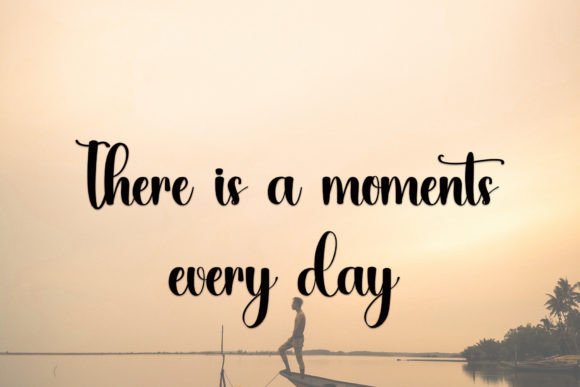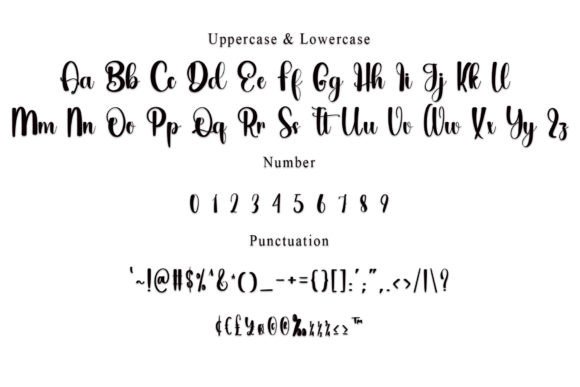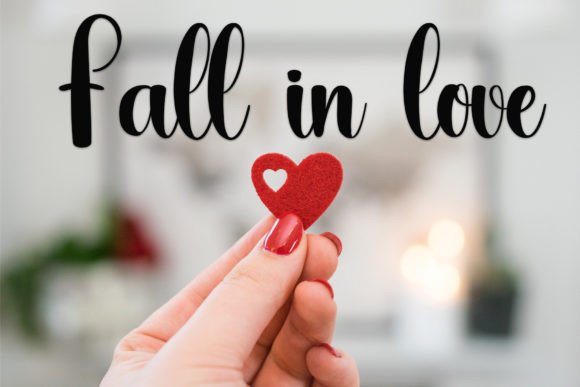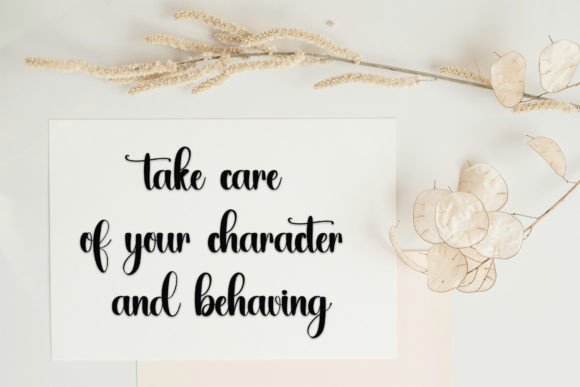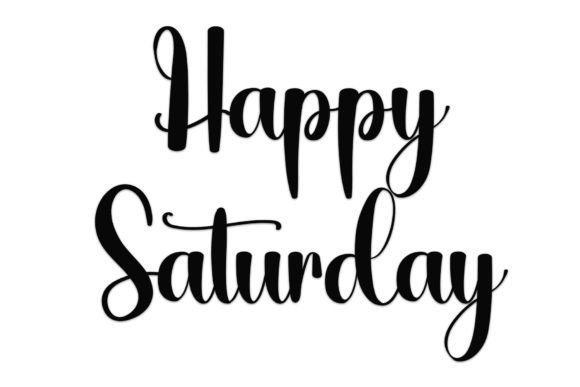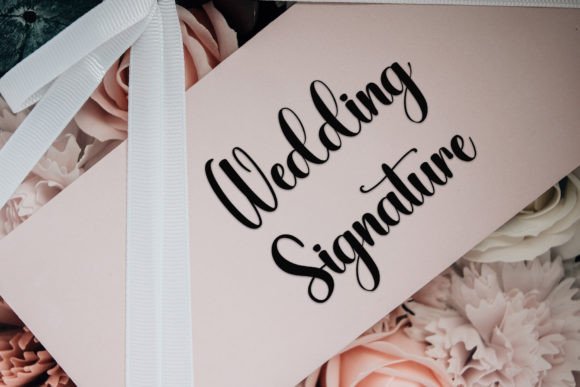
The Perfect Blend of Elegance and Whimsy: Baby Sintya Font
Do you ever find yourself scrolling through your favorite design inspiration board, and suddenly, a beautiful handwritten font catches your eye? For many of us, it’s that perfect moment when a creative spark is ignited. It’s the moment when we know we have to try something new, something special. And for designers and creatives out there, the search for the perfect font is an ongoing quest.
Enter the Baby Sintya Font, a carefully crafted handwritten font that embodies a touch of elegance and whimsy. This font is perfect for anyone looking to add a personal touch to their designs, whether it’s for Instagram captions, calligraphy scripts, or DIY projects. With its versatility and charm, the Baby Sintya Font is a valuable addition to any designer’s toolkit.
- Font Type: Script Font
- Unique Characteristics: Hand-drawn, elegant, and cursive script font, ideal for creating a warm and inviting atmosphere in designs.
- Language Support: Multi-language support, including Latin, Cyrillic, and Greek alphabets.
Baby Sintya Font Review
As a designer, I was excited to try out the Baby Sintya Font. Overall, I found it to be a cute and playful font, perfect for creating a whimsical feel in children’s books, nursery decorations, or other projects that require a touch of sweetness. ✨
- Its rounded shapes and soft lines give it a gentle, childlike feel.
- The font is highly customizable, allowing for a range of color options and effects.
- It’s available in a variety of weights, from light to bold, making it versatile for different applications.
- ⚠️ The font may not be suitable for formal or professional projects, as it can come across as overly childish.
- ⚠️ Some of the characters may not be perfectly formed, which can affect the overall quality of your design.
- ⚠️ The font is not as bold or striking as some other options, which may limit its use in high-impact designs.
Overall, I think the Baby Sintya Font is a fun and creative choice for designers looking to add a touch of whimsy to their projects. While it may have some limitations, it’s a great option for projects that require a lighthearted and playful feel.
Some tips for getting the most out of the Baby Sintya Font include:
– Using it for playful and creative designs.
– Pairing it with bold and colorful graphics.
– Creating custom logos or branding materials.
– Using it for social media posts, flyers, or posters.
Q: Is Baby Sintya a web-friendly font?
Yes, Baby Sintya is designed to be web-friendly and can be easily embedded in HTML documents. It is also optimized for use in digital interfaces, with clear and legible rendering on a range of devices and screen sizes.